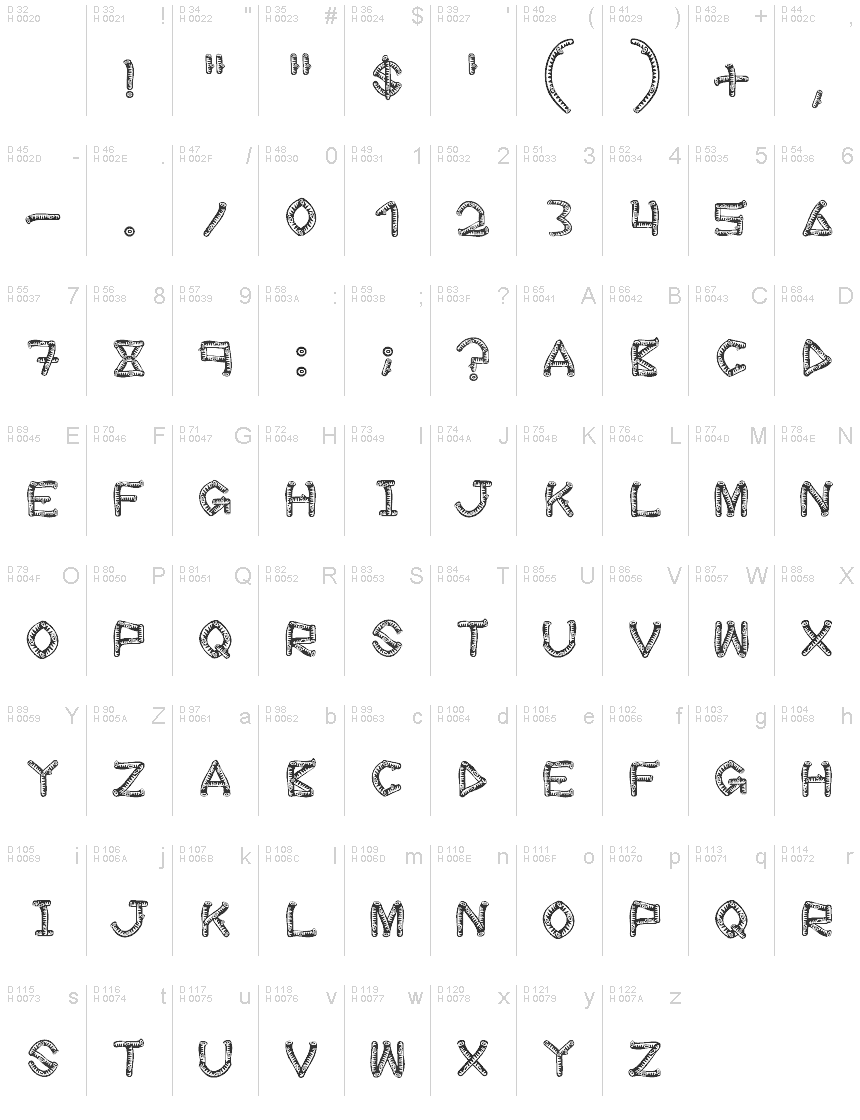
wood sticks
Wood Sticks, designed by Fontilizer, brings a playful twist to the display font family. With its cartoon style and semi-expanded width, this font exudes a charmingly rustic vibe that is both eye-catching and endearingly whimsical. The letters, reminiscent of carefully assembled twigs or branches, offer a touch of nature-inspired creativity to any design project.
The aesthetic appeal of Wood Sticks lies in its unique fusion of the outdoors with a handcrafted feel. Each character seems to dance with a life of its own while maintaining legibility and impact. This makes it an excellent choice for titles, headers, or any application where a touch of fun and imagination is desired.
Wood Sticks is particularly well-suited for projects aimed at children or themes centered around adventure and the natural world. Whether it's branding for an eco-friendly initiative, signage for a nature trail, or playful event invitations, Wood Sticks adds that special flair that can turn the ordinary into something memorably enchanting.
The aesthetic appeal of Wood Sticks lies in its unique fusion of the outdoors with a handcrafted feel. Each character seems to dance with a life of its own while maintaining legibility and impact. This makes it an excellent choice for titles, headers, or any application where a touch of fun and imagination is desired.
Wood Sticks is particularly well-suited for projects aimed at children or themes centered around adventure and the natural world. Whether it's branding for an eco-friendly initiative, signage for a nature trail, or playful event invitations, Wood Sticks adds that special flair that can turn the ordinary into something memorably enchanting.